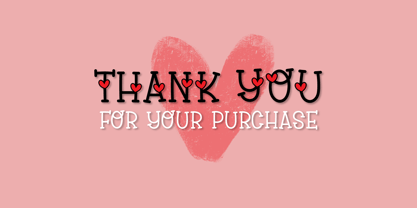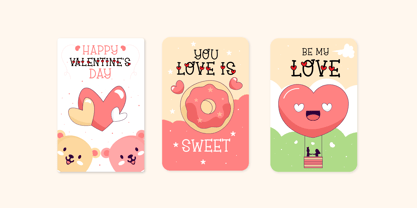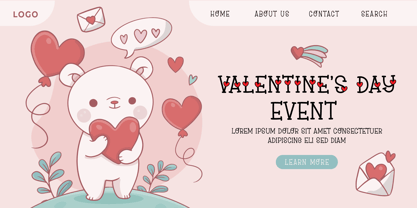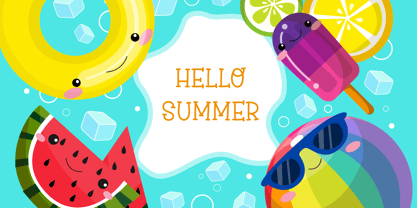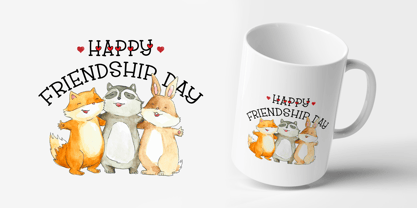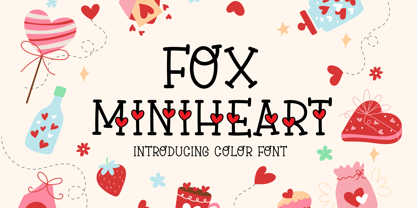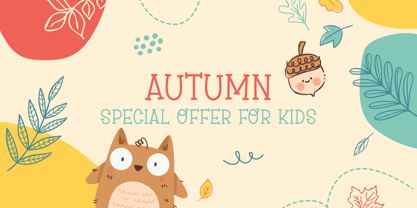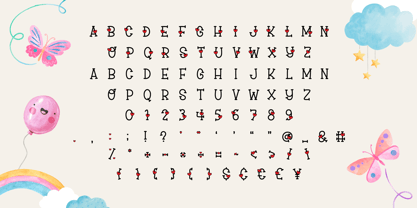
Fox Miniheart
Die Schriftfamilie Fox Miniheart wurde von Rattana Rattanawan entworfen und von Fox7 veröffentlicht. Fox Miniheart enthält 1 Stile.
Fox Miniheart Fonts are cute and fun color fonts at handwritten fonts. Fall in love with its authentic feel and use it to create gorgeous invitations, beautiful stationary art, eye-catching social media posts, and cute greeting cards. Add this beautiful display font to each of your creative ideas, and notice how it makes them stand out.